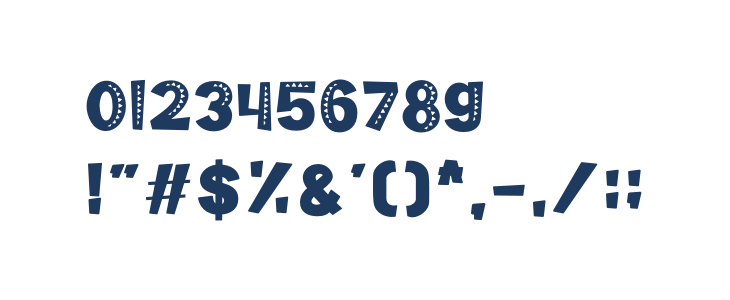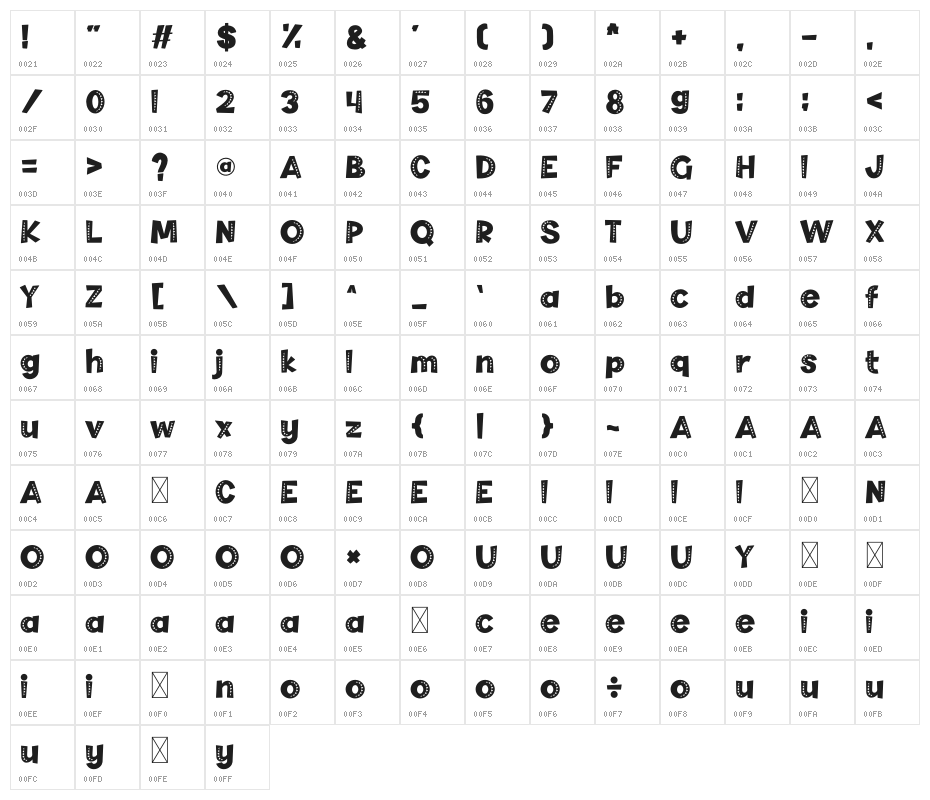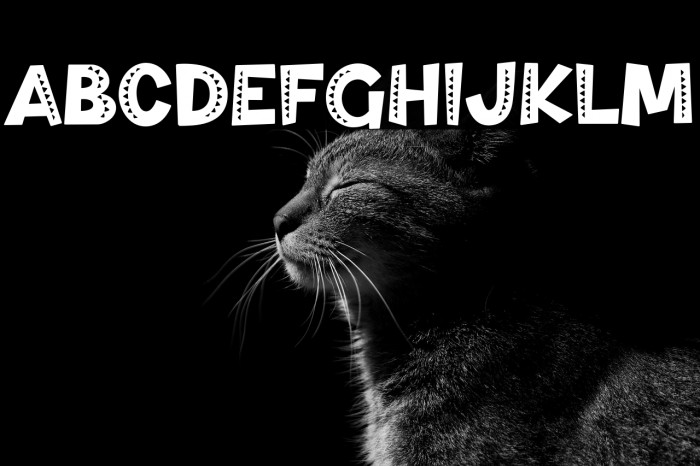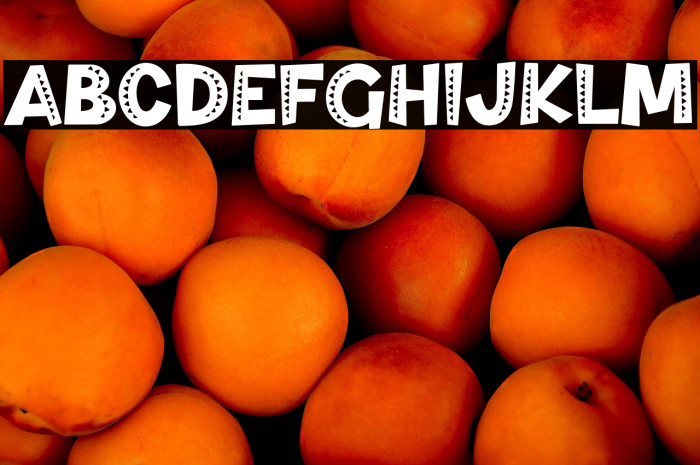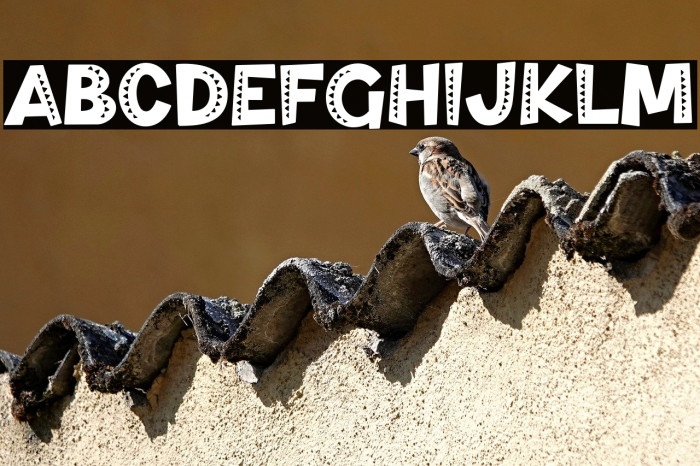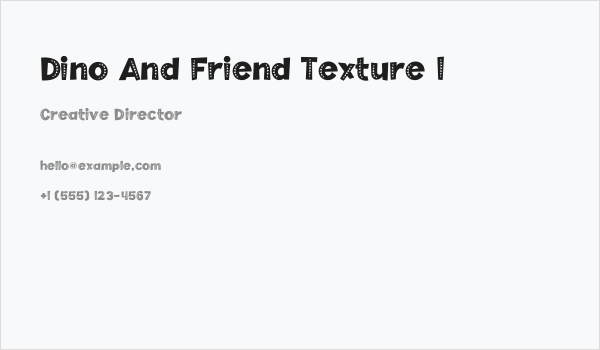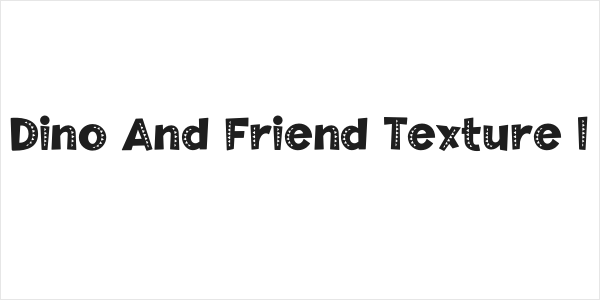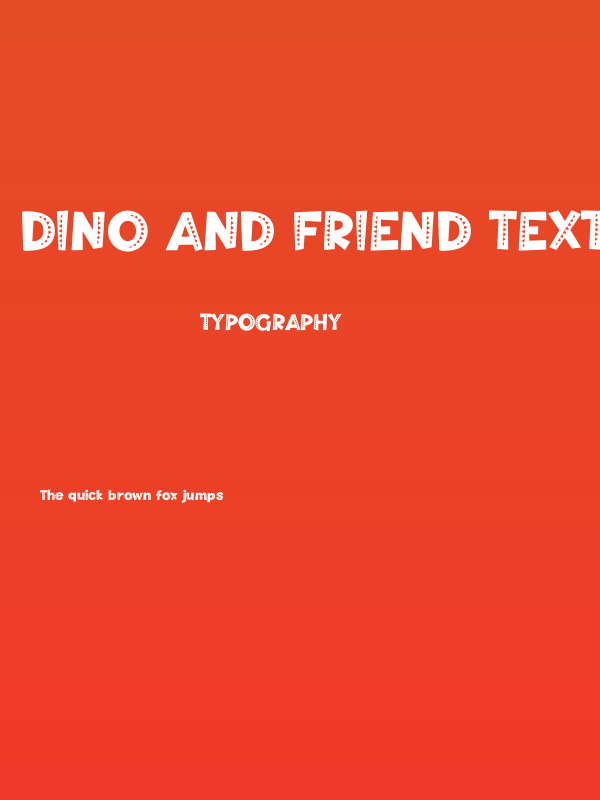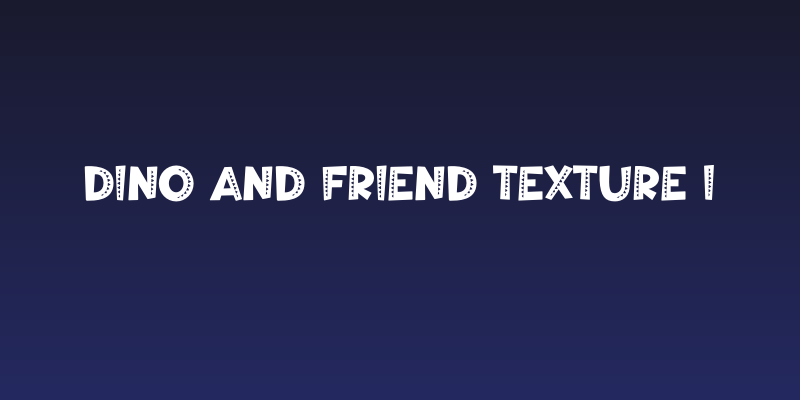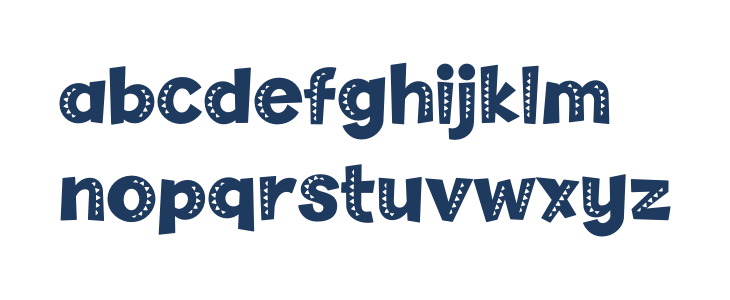
Dino And Friend Texture 1 Font
Dino And Friend Texture 1 Description
This playful and whimsical font features bold, chunky letters with a unique textured pattern inside each character. The design incorporates a fun, childlike aesthetic, making it ideal for projects that require a touch of creativity and imagination. The uppercase and lowercase letters maintain a consistent style, with rounded edges and a slightly irregular shape that adds to the font's charm. Numbers and special characters are also included, each with the same distinctive pattern. The font's bold appearance ensures it stands out, while the decorative elements provide a sense of movement and energy.